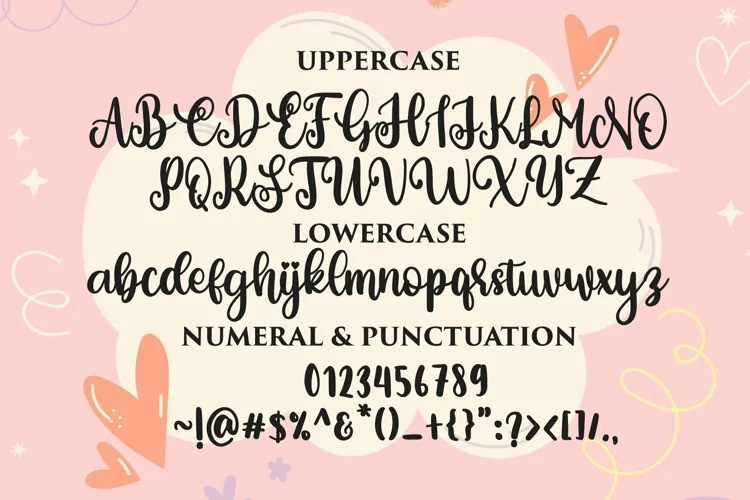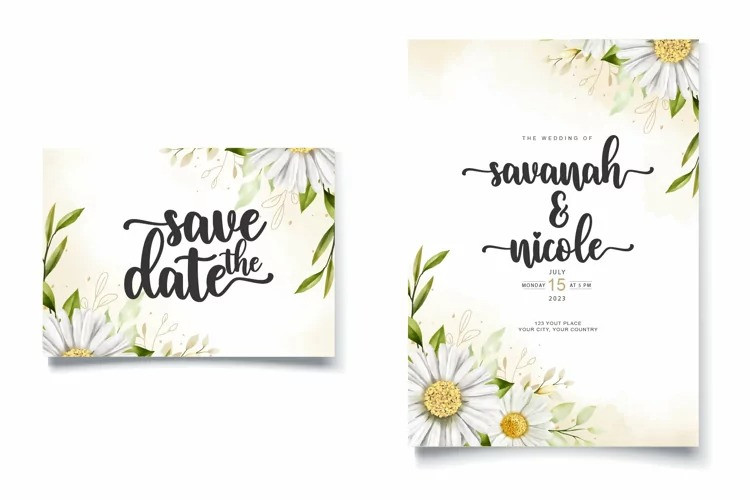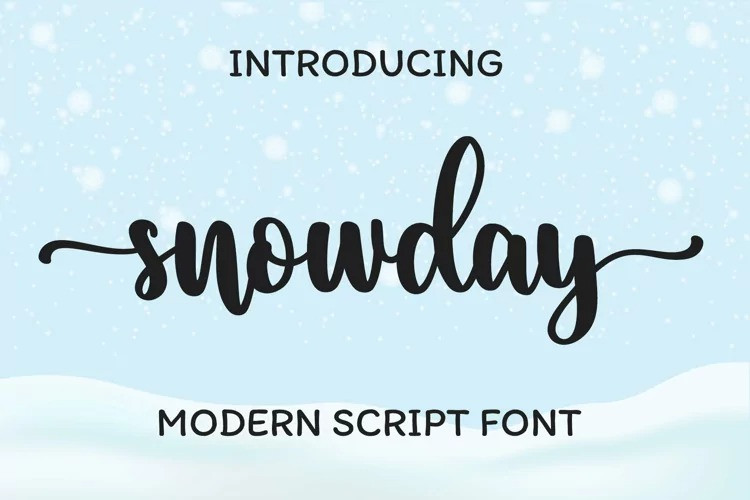
Snowday Font
Snowday Font is a romantic and sweet calligraphy typeface with characters that dance along the baseline. It has a casual, yet elegant touch. This font is PUA encoded which means you can access all of the glyphs and swashes with ease!